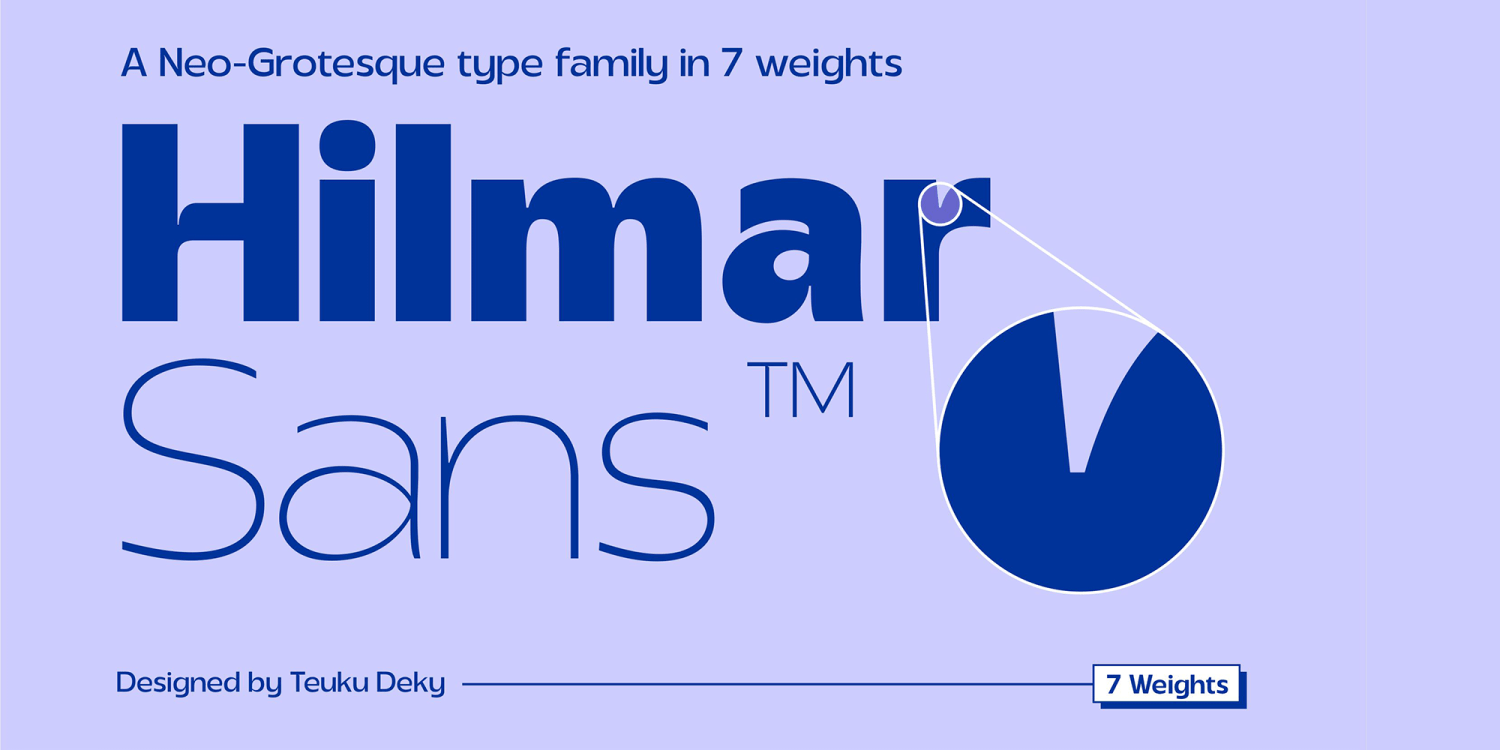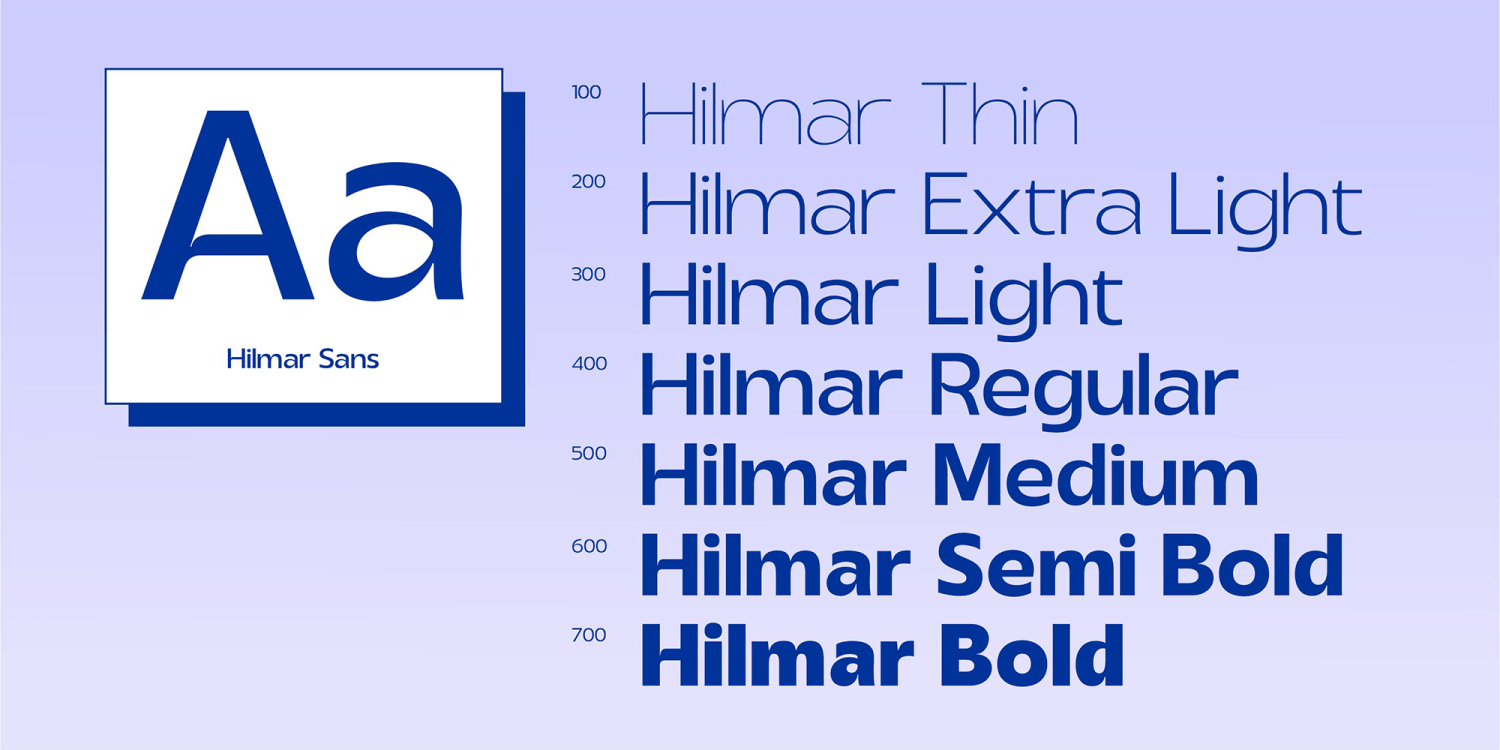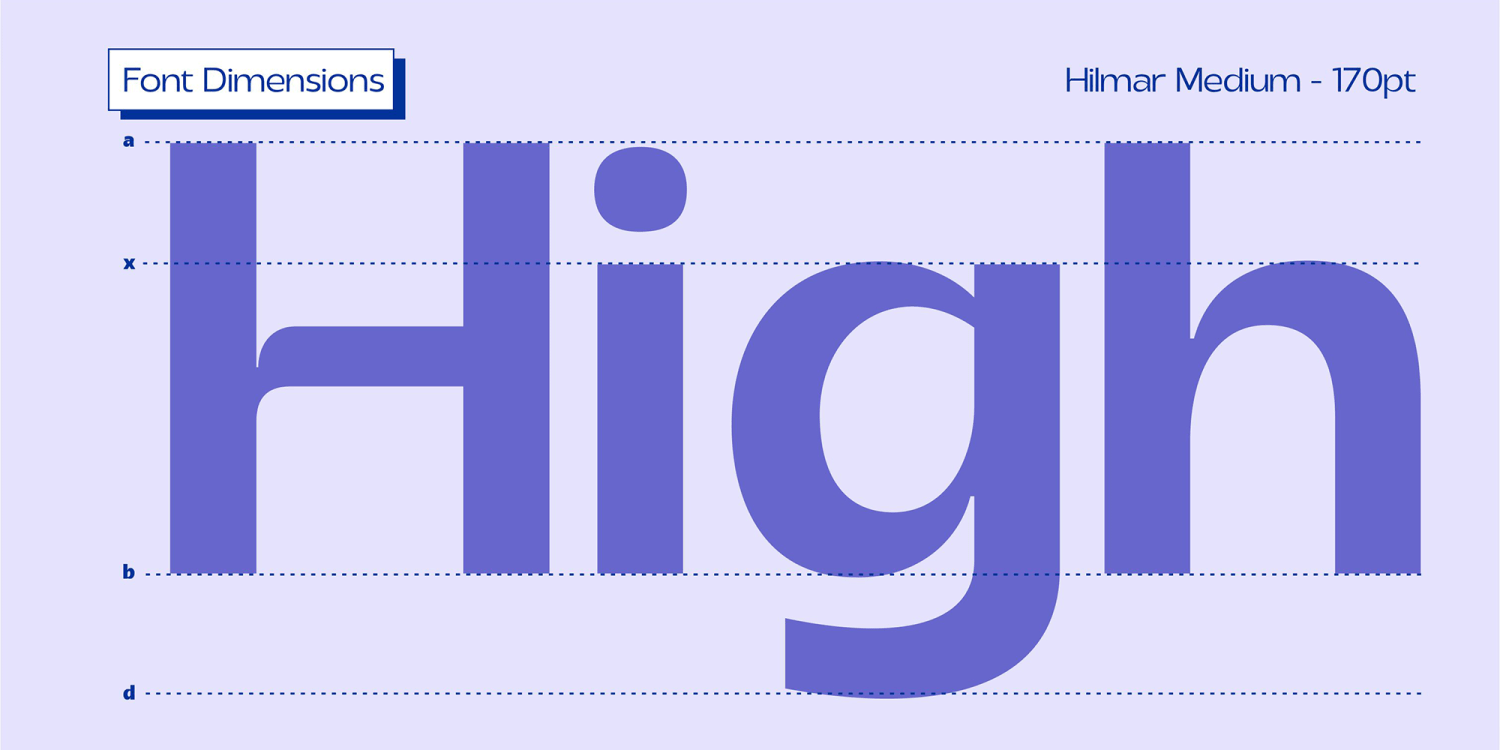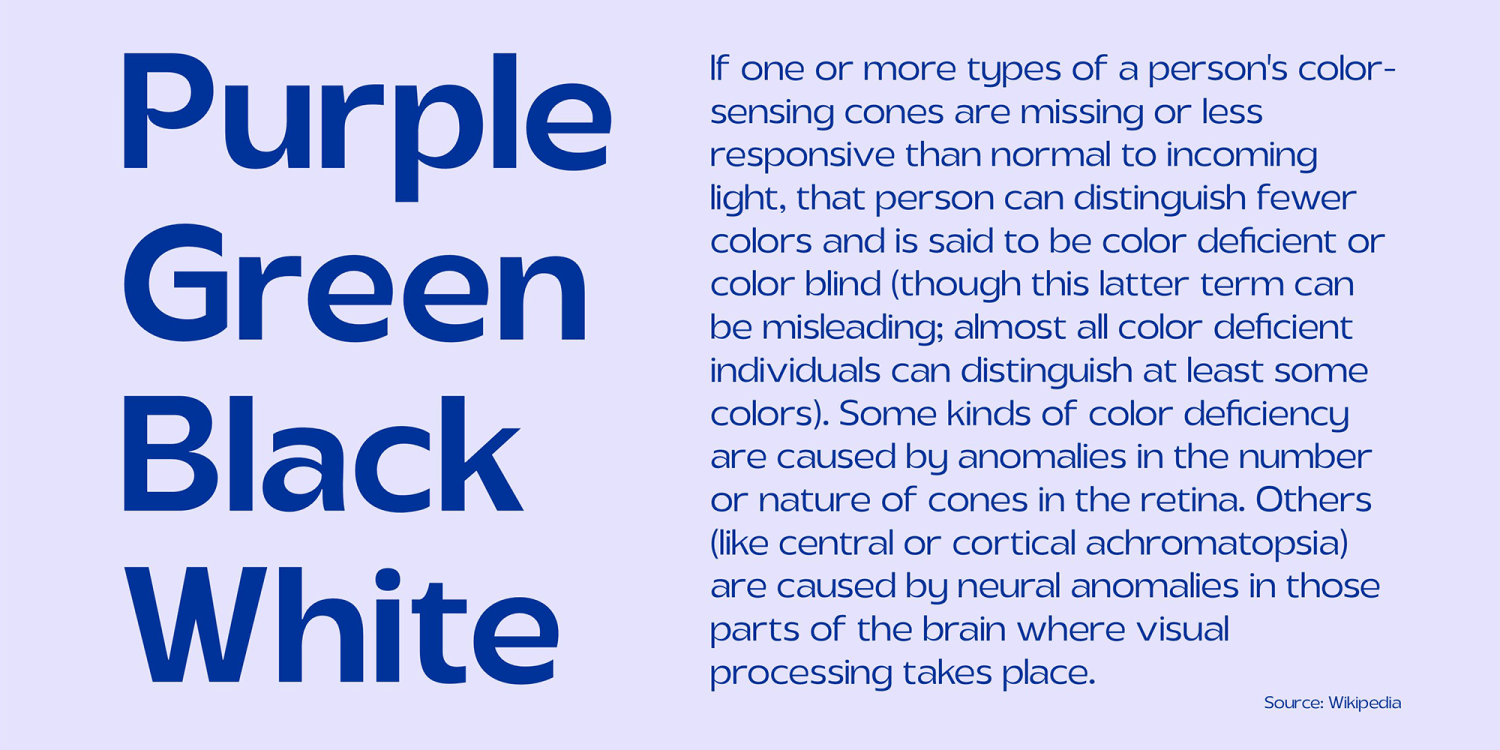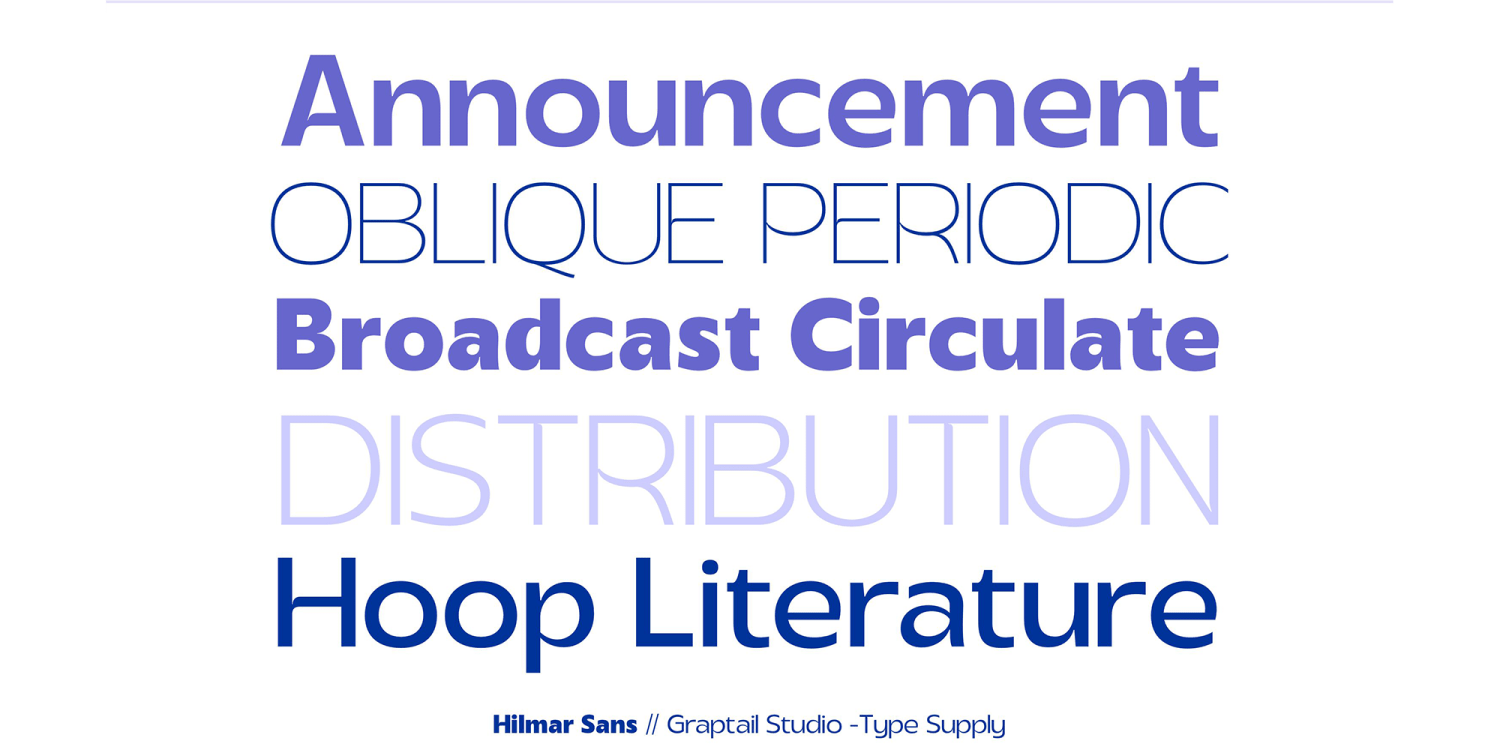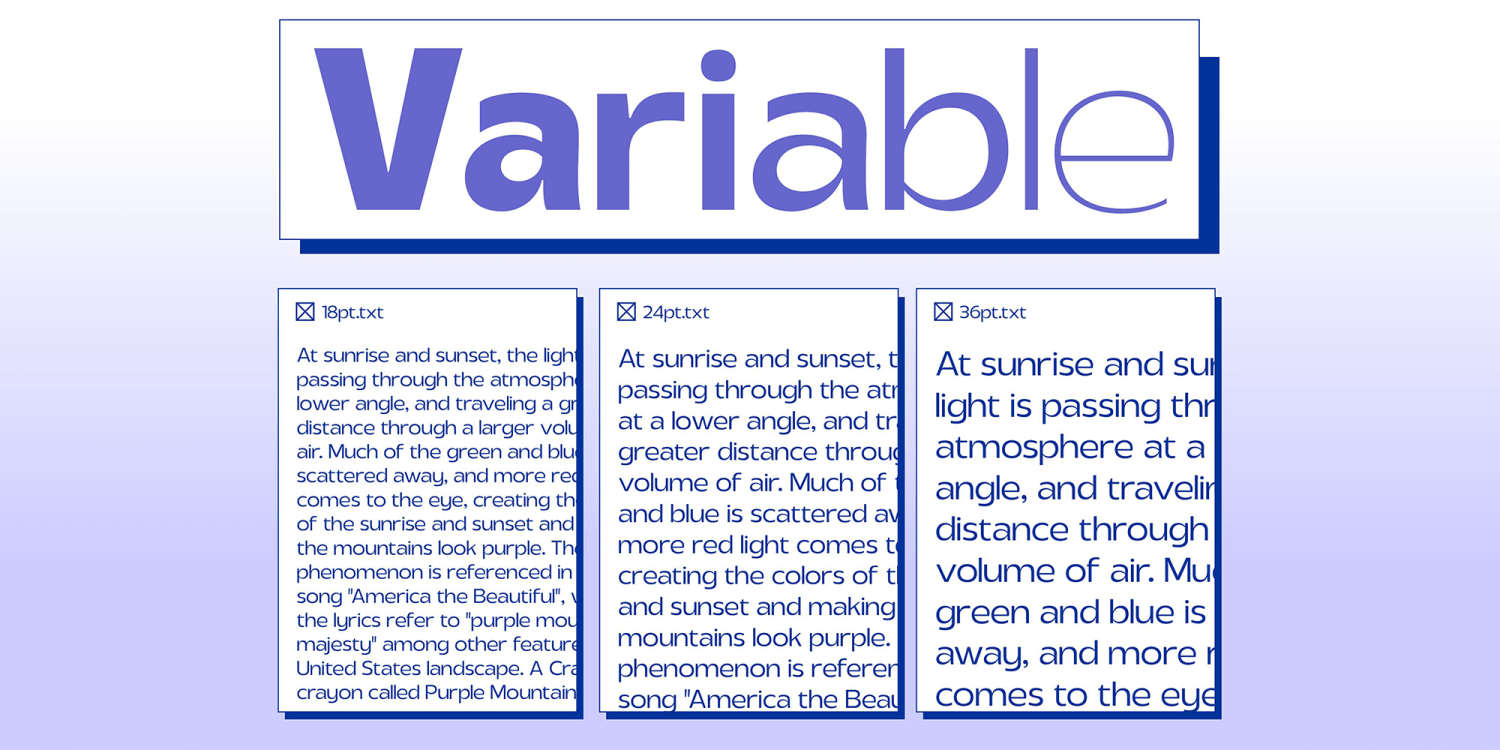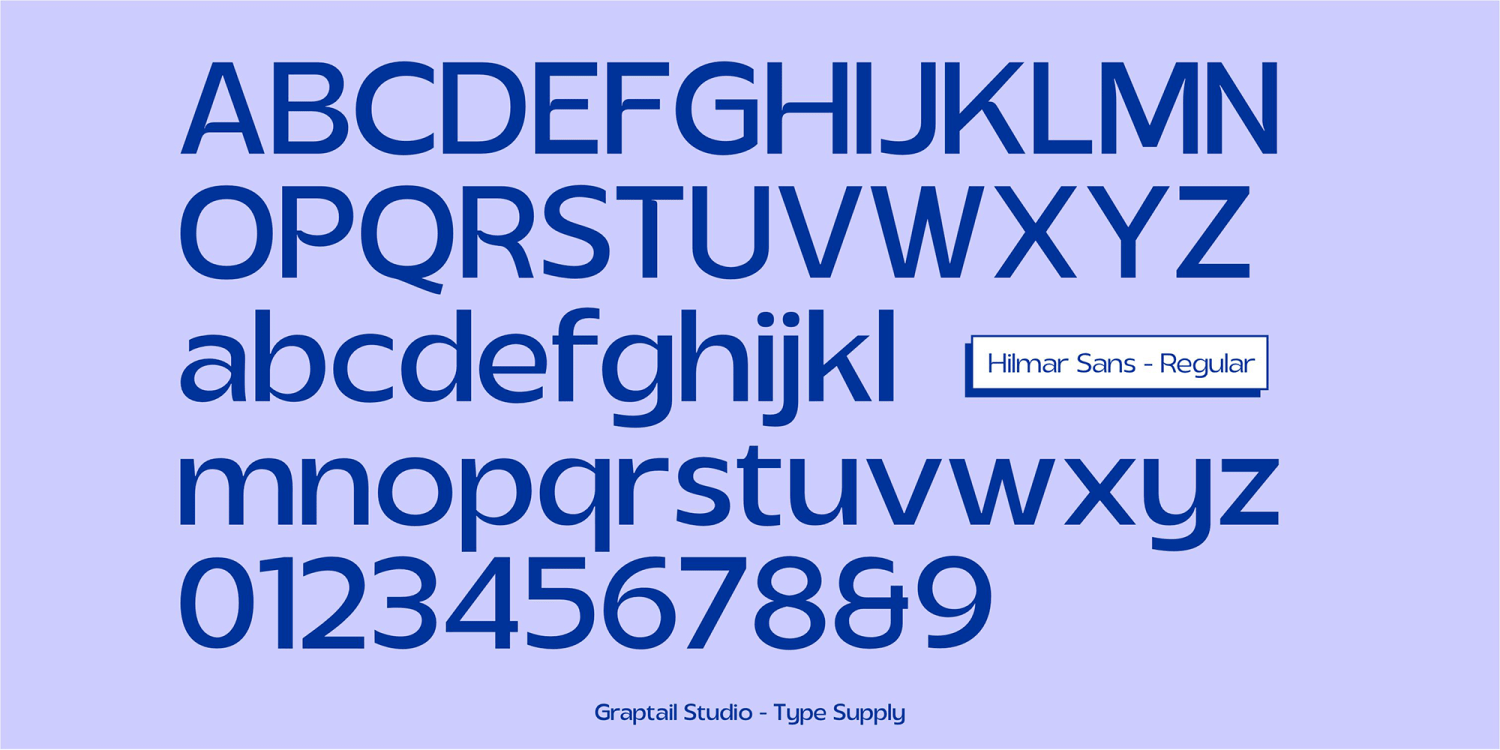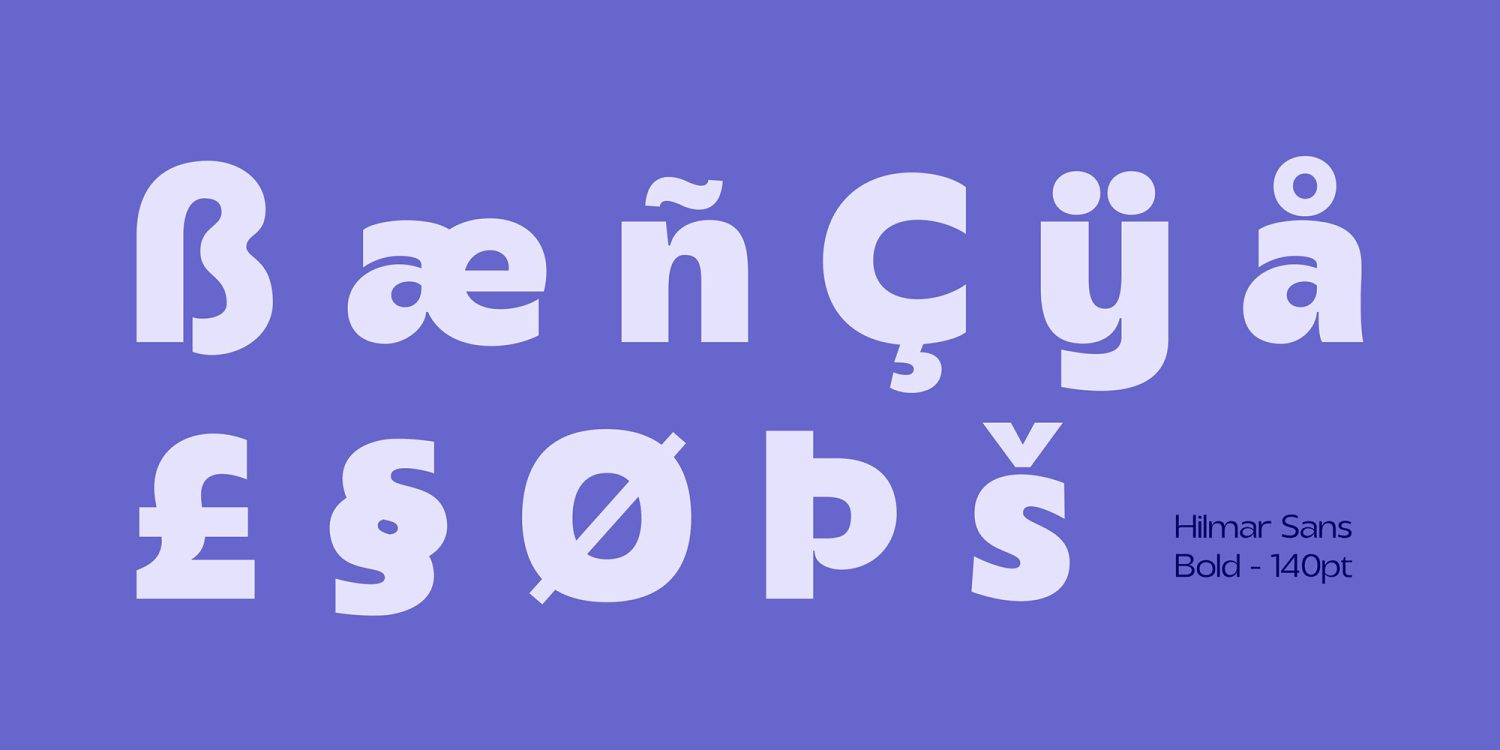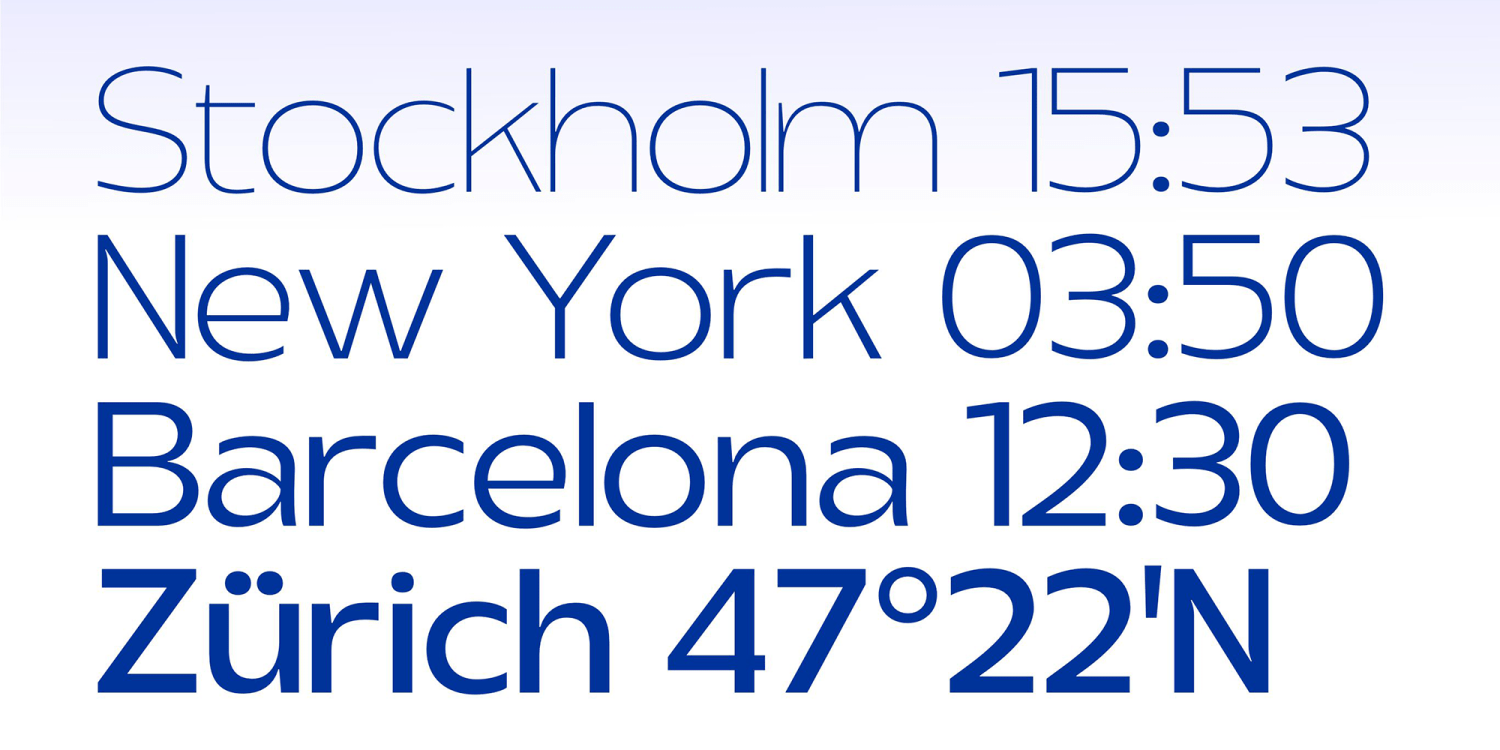
Hilmar Sans
Hilmar Sans is a neo-grotesque typeface family in 7 weights, supports most European languages, and includes a range of features. The typeface is versatile enough to blend into your design — with 7 weights ranging from Thin, Extra Light, Light, Regular, Medium, Semi Bold, to Bold variable type. Perfect anywhere you need the right final touches for branding, publishing, titles, books, magazines, or UI/UX design.